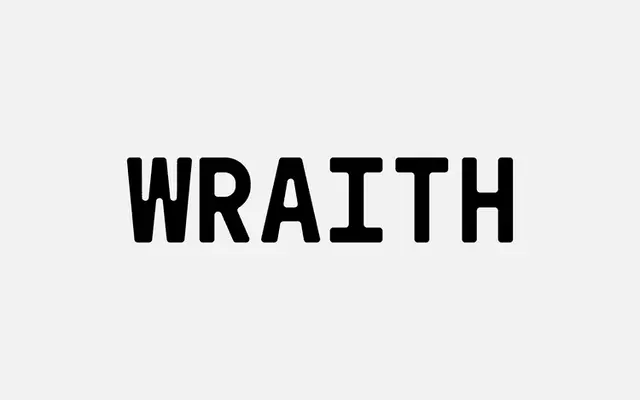
Wraith Mono
An all-caps monospaced font with chunky, rounded letterforms suited to both strong display headings and tabular settings.
Simple in construction, Wraith Mono pairs chunky weight with softened forms, giving it a character that works across scales. Its monospaced design makes it serviceable for tabular data while the bold presence holds up at headline sizes. Available as a single OTF file at a low price point.
An all-caps monospaced font with chunky, soft letterforms; classified as geometric mono due to its uniform spacing and simplified, rounded construction.